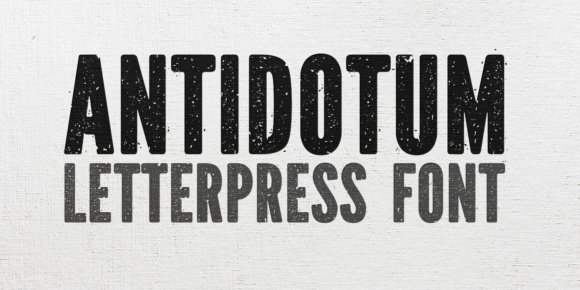
The Power of Grunge Typography: Unleashing the Potential of Antidotum Font
Have you ever stared at a blank page, surrounded by a sea of digital screens, and felt the overwhelming urge to create something real? Something tangible? That’s when I reach for my trusty letterpress kit and the Antidotum Font, a hand-made masterpiece that brings a touch of grit and grunge to my designs.
Antidotum Font is more than just a font – it’s an experience. With two distinct sets of capital letters, it adds a layer of depth and character to any project. Whether you’re designing a logo, a poster, or a business card, Antidotum Font is the perfect tool to add some much-needed texture and visual interest.
For designers, Antidotum Font is a valuable addition to any toolkit. Its unique aesthetic and tactile feel make it perfect for projects that require a bit of edge and sophistication. So why settle for a generic font when you can unleash the raw power of the Antidotum Font and take your designs to the next level?
Antidotum Font Key Features
- Font Size: The font family includes a range of weights from Thin to Extra Bold, providing flexibility for various design applications.
- Unique Characteristics: The font features a unique blend of modern and classical elements, with intricate details and subtle texture, giving it a distinctive and elegant appearance.
- Kerning and Ligatures: Antidotum Font includes advanced kerning and ligature features, ensuring smooth and visually appealing text rendering.
Designer Review: Antidotum Font
Overall, I’d say Antidotum Font is an interesting addition to the world of typography. The font has some great qualities that make it worth considering for certain projects. ✨
- Unique and interesting design: Antidotum Font has a distinctive look that sets it apart from more common fonts. This can be a great choice for projects where you want to stand out and convey a sense of individuality.
- Good for display text: The font’s bold, expressive nature makes it well-suited for headings, titles, and other display text applications.
- Customizable: Antidotum Font offers a range of weights and styles, allowing you to customize the font to fit your specific needs.
However, like any font, Antidotum Font has its limitations. ⚠️
- Limited legibility: At smaller font sizes, Antidotum Font can be a bit difficult to read, which may limit its use in body text or other situations where readability is crucial.
- Lack of consistency: Some of the font’s styles and weights feel a bit inconsistent, which can make it harder to use across different projects.
Overall, I’d say Antidotum Font is a solid choice for projects where you want to add a touch of uniqueness and personality. Just be aware of its limitations and use it thoughtfully to get the best results.
Antidotum Font is ideal for:
1. Creating visually appealing headings and titles.
2. Adding a touch of elegance to typography-heavy designs.
3. Creating professional-looking presentations and documents.